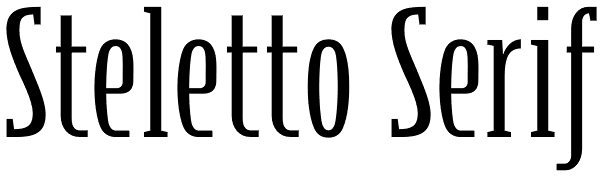
Steletto Serif
Condensed serif font. Great for tight-fitting headlines and other condensed titling situations such as headlines, ads, invitations, captions, packaging, bulletins, posters, and greeting cards.